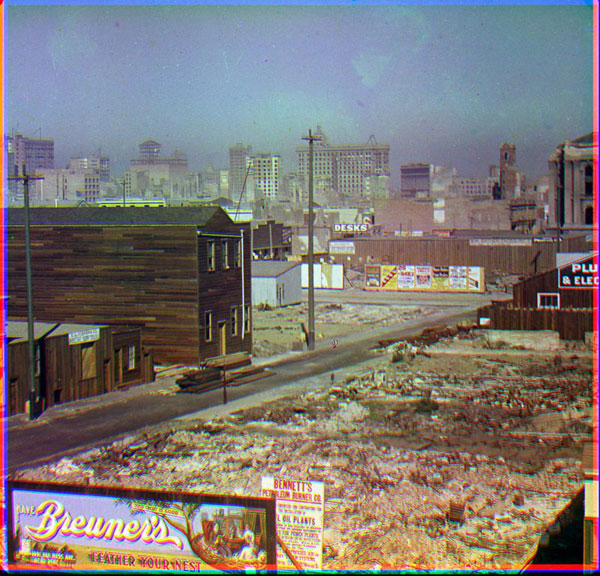
Nice to see a color photo from the year 1906...Check out the billboard.
Color Photo - 1906
Re: Color Photo - 1906
Very interesting, indeed! Especially given the fact that the accompanying news story verifies that these are authentic, 105- year-old color photographs: very rare.
Also of interest it the giant beer ad in one of the black and white plates! It appears to have been intentionally painted in a naive, "amateur" style by a professional sign company. It is godawful, and seems completely out of time and place. It is really fascinating when these "period-incorrect" curiosities sometimes pop up in old photos.
Re: Color Photo - 1906
Wow, these photos are even more extraordinary for another reason.
They are 3D photos. They are meant to be seen through one of the old viewers.
I don't have one of the viewers available and you probably don't either, but you can see it in 3D without a viewer.
Go to the page where they where published so you get both images side by side. Sit back from the screen a little and allow your eyes to relax and bring the two images together.
If you recall those "magic eye" 3D illustrations that were popular a few years ago, it's the same technique to see the effect.
It's a bit of a stretch because the images are a fair distance apart, but if you can do it, the effect is amazing.